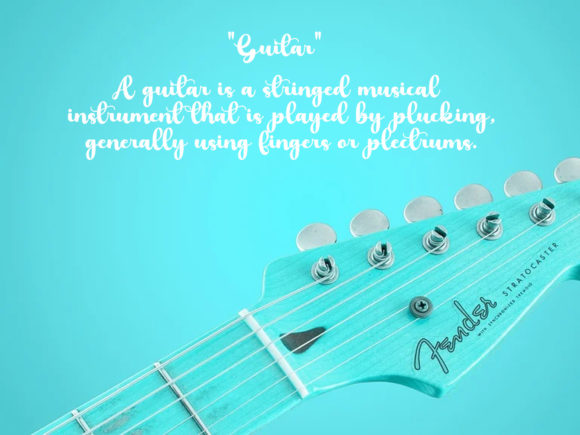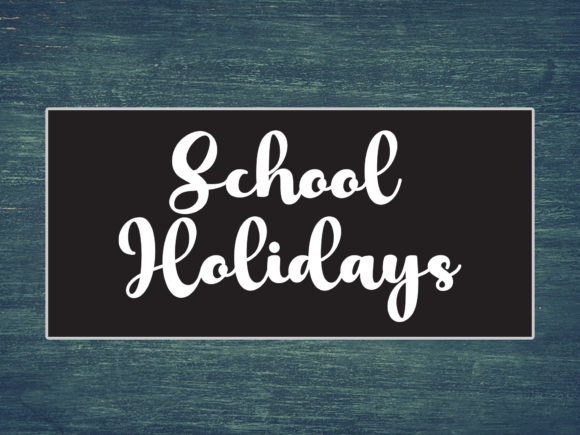
Dinosaur Font
db-ku.com - Script & Handwritten -- Dinosaur is a delicate handwritten font that is carefully crafted for a cool and unique design. This font can be used to write letters, invitations, food products, titles, and more.